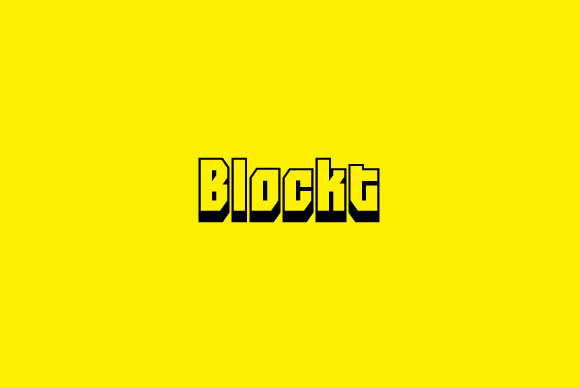
Blockt Font
Welcome to the realm of Blockt, a wondrous decorative font family that ignites the power of visual storytelling. Each glyph is meticulously crafted to dance gracefully across your screens, leaving an enchanting trail of creativity in its wake.
Immerse yourself in the captivating allure of Blockt, where every letter exudes personality and charisma. Its bold strokes and striking angles evoke a sense of depth and dimension, drawing the eye to your creations like a magnet. Let Blockt be your artistic compass, guiding you towards distinctive designs that break the mold and leave a lasting impression.
Whether you're weaving captivating brand identities, crafting spellbinding social media posts, or penning heartfelt invitations, Blockt empowers you to make a statement with every stroke. Its versatility knows no bounds, adapting seamlessly to a myriad of aesthetics. Unleash your imagination and watch as Blockt transforms your words into captivating works of art.
But Blockt is more than just a font; it's a gateway to a world of endless possibilities. Its enigmatic charm invites you to explore the uncharted territories of visual expression, where creativity reigns supreme. Let Blockt ignite the spark of inspiration within you and elevate your designs to extraordinary heights.
Imagine the awe on your audience's faces as they behold your creations adorned with Blockt. Its captivating presence will mesmerize and captivate, leaving them spellbound by the sheer brilliance of your artistry. Blockt is not just a font; it's a tool that empowers you to unleash your inner artist and create masterpieces that transcend the ordinary.
Join the countless designers, creatives, and typography enthusiasts who have succumbed to the allure of Blockt. Let its bold strokes and enchanting angles guide you towards a world of visual enchantment. Discover the boundless possibilities that await you within the realm of Blockt, and embrace the power to create designs that redefine the boundaries of imagination.